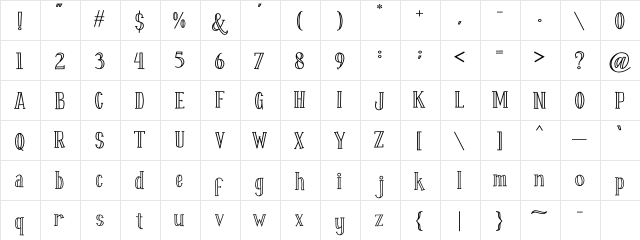
Fontastique Carved Regular
Design Context for Fontastique Carved Typeface
Fontastique Carved takes a measured approach to typography — its balanced proportions and neutral character make it a reliable workhorse for both digital and print work.